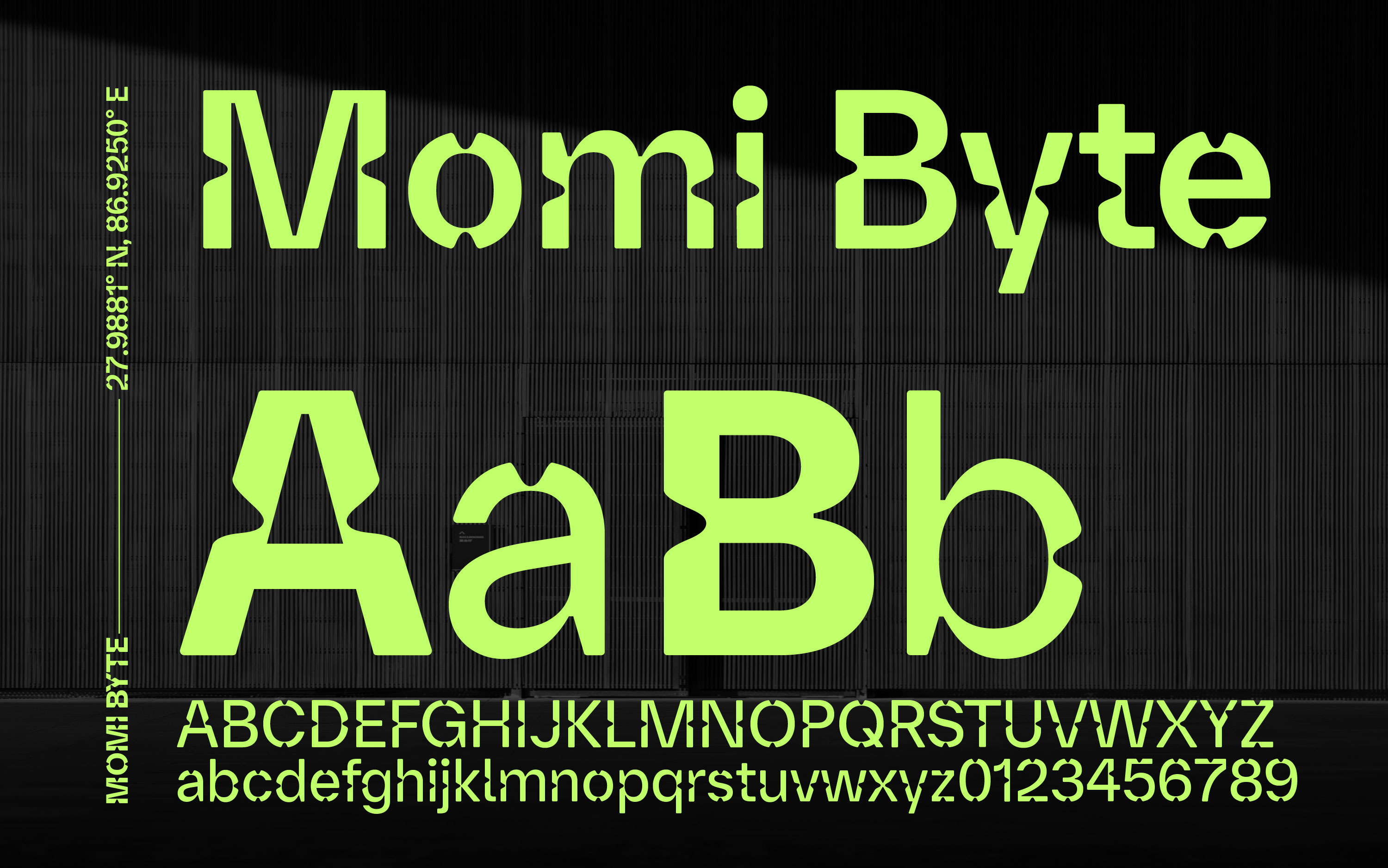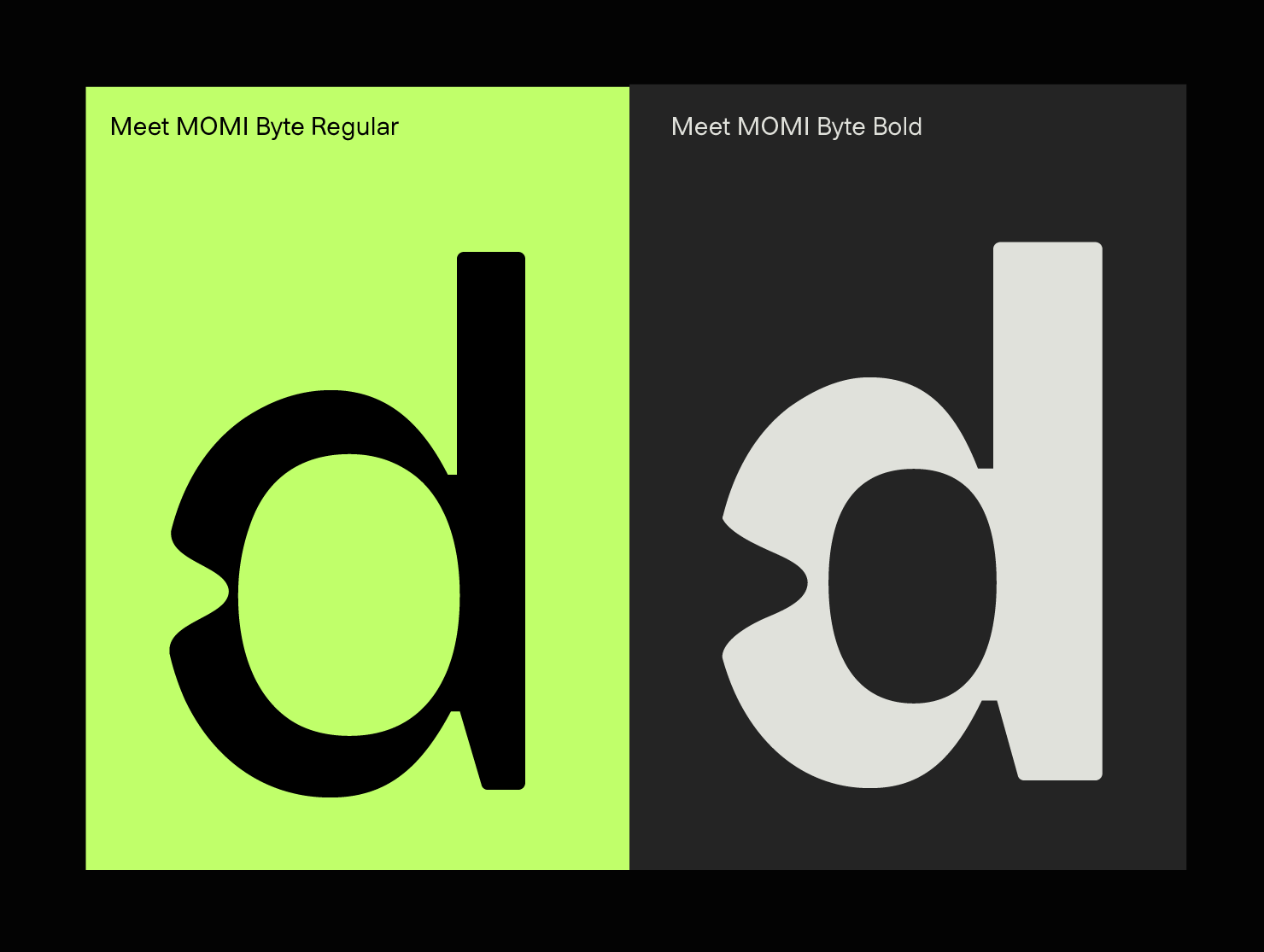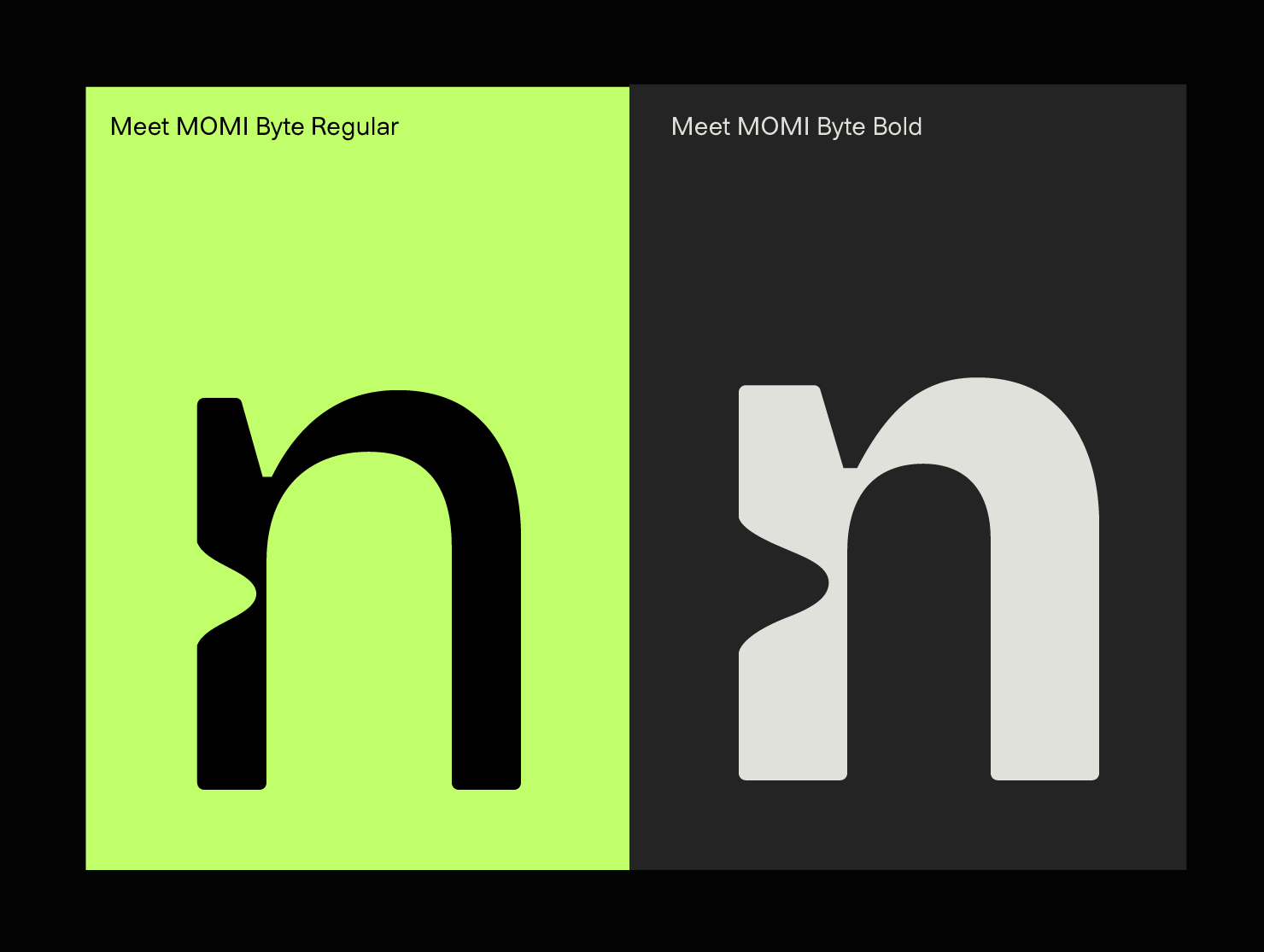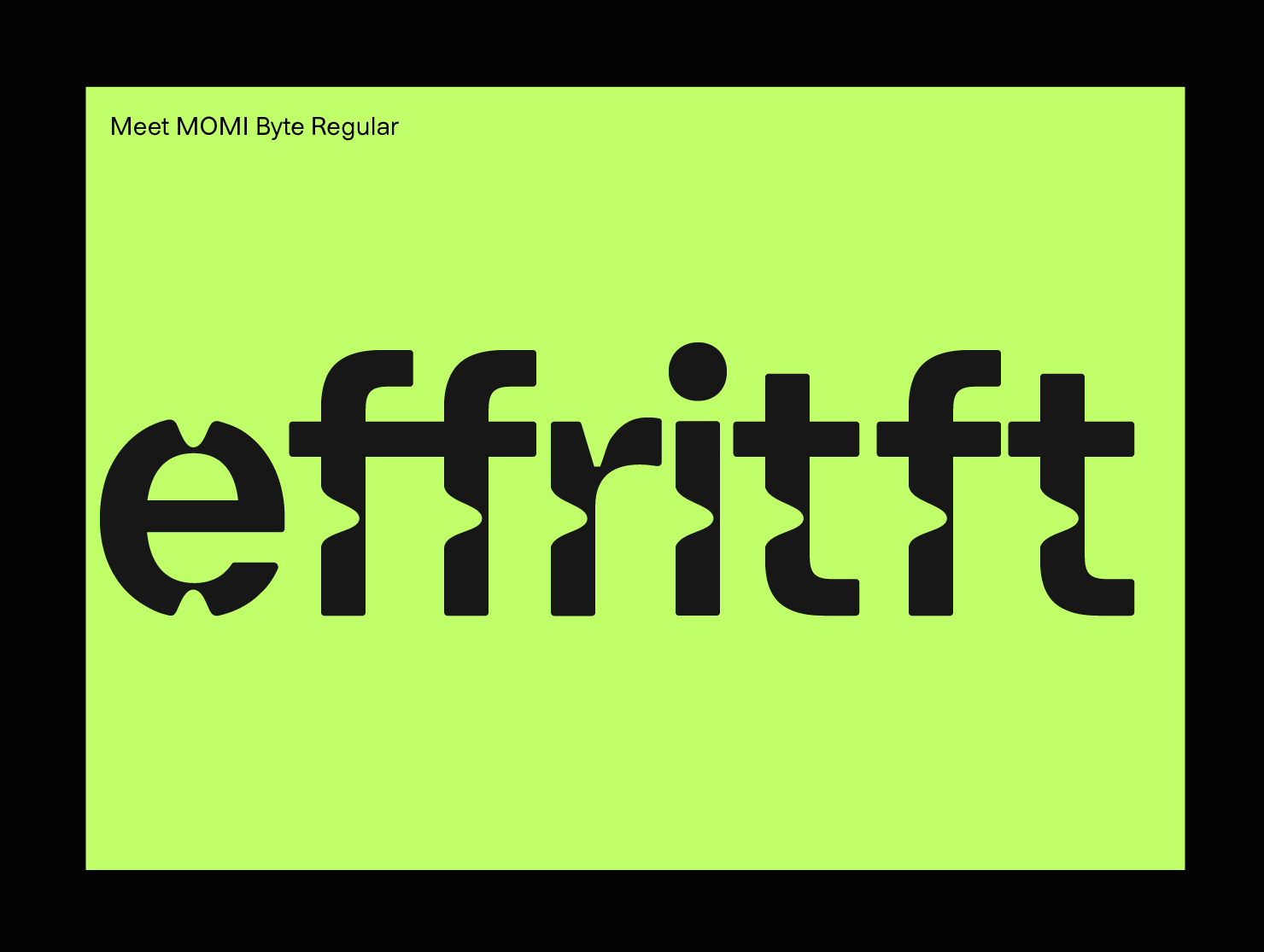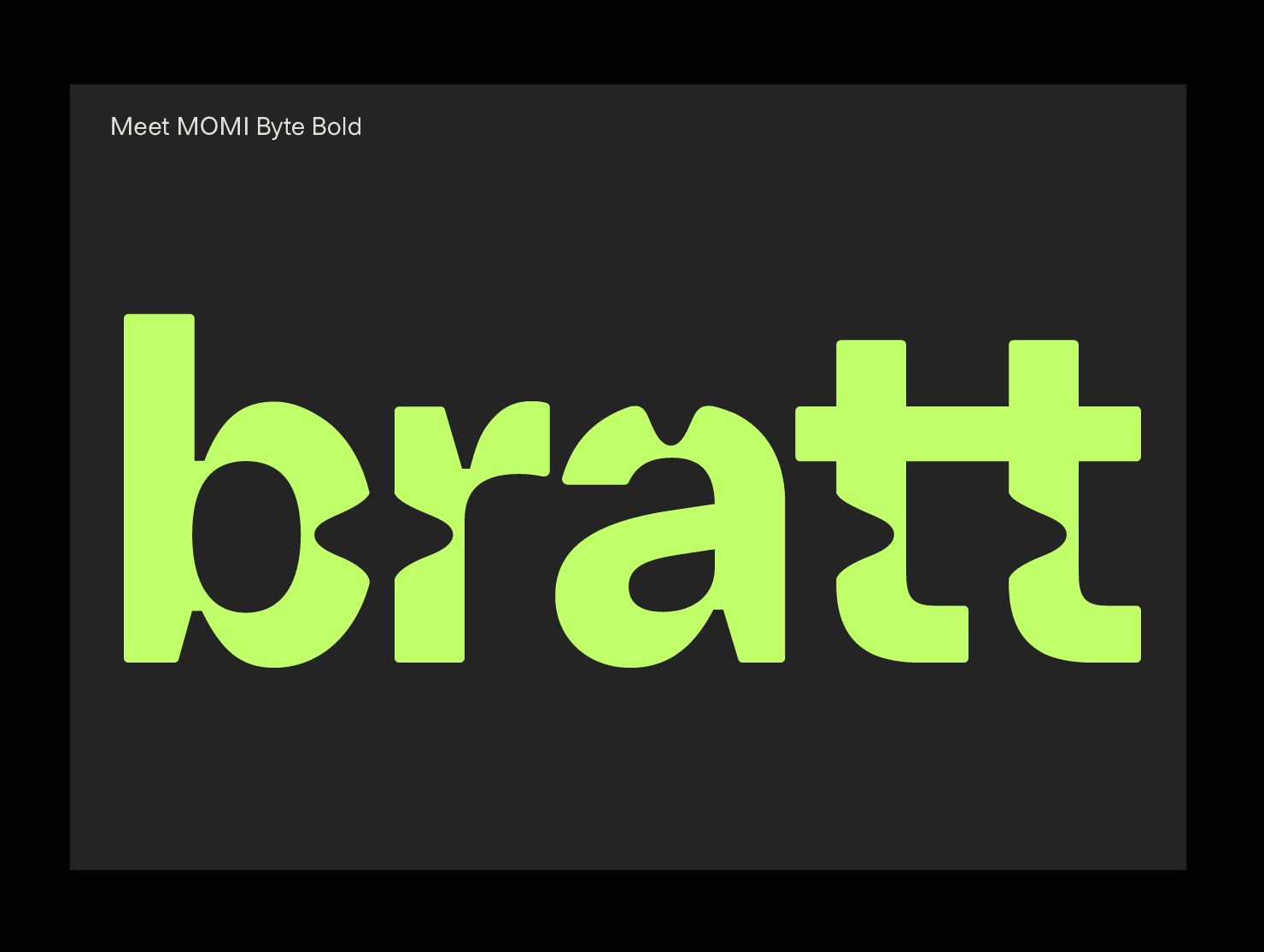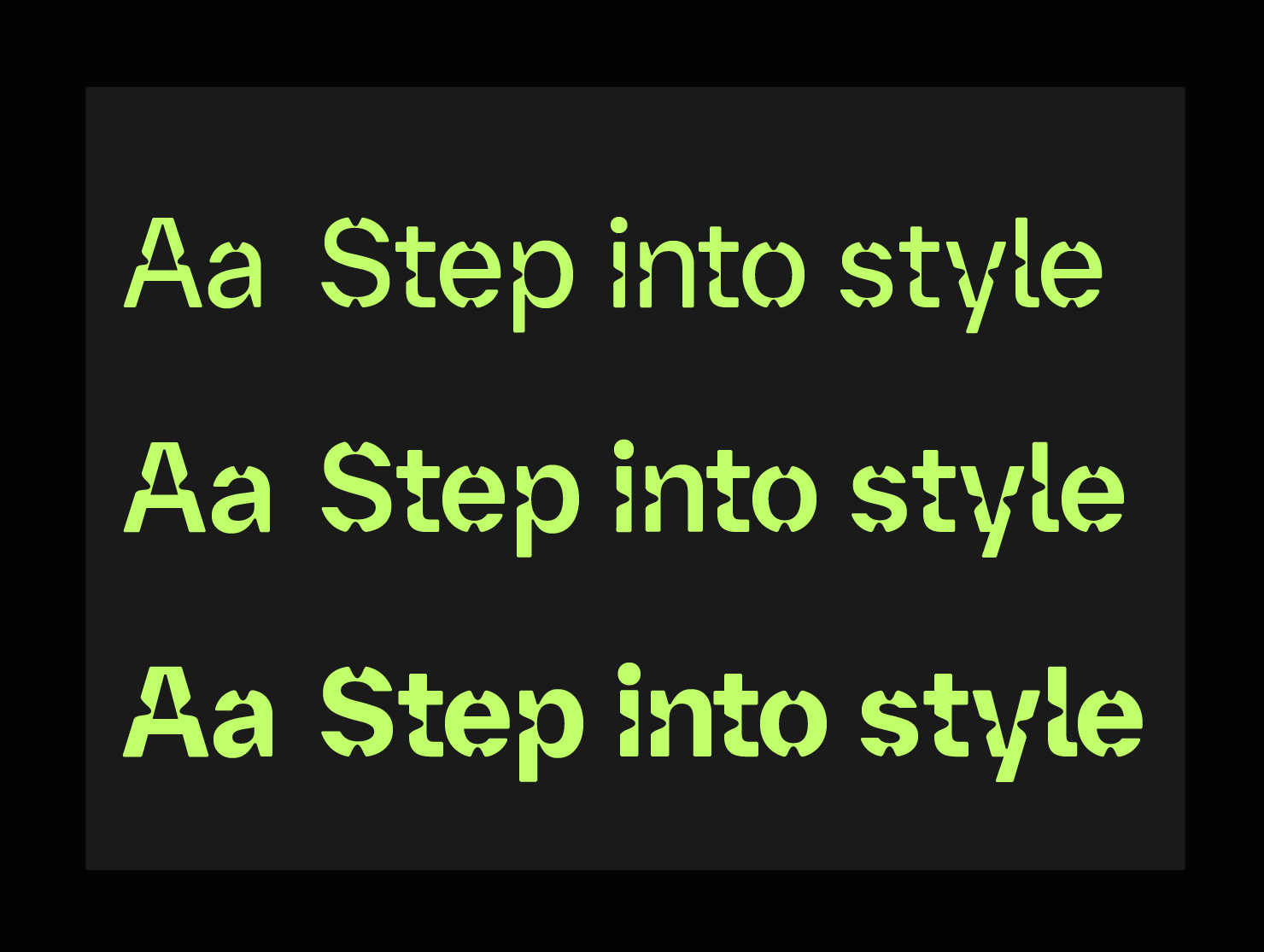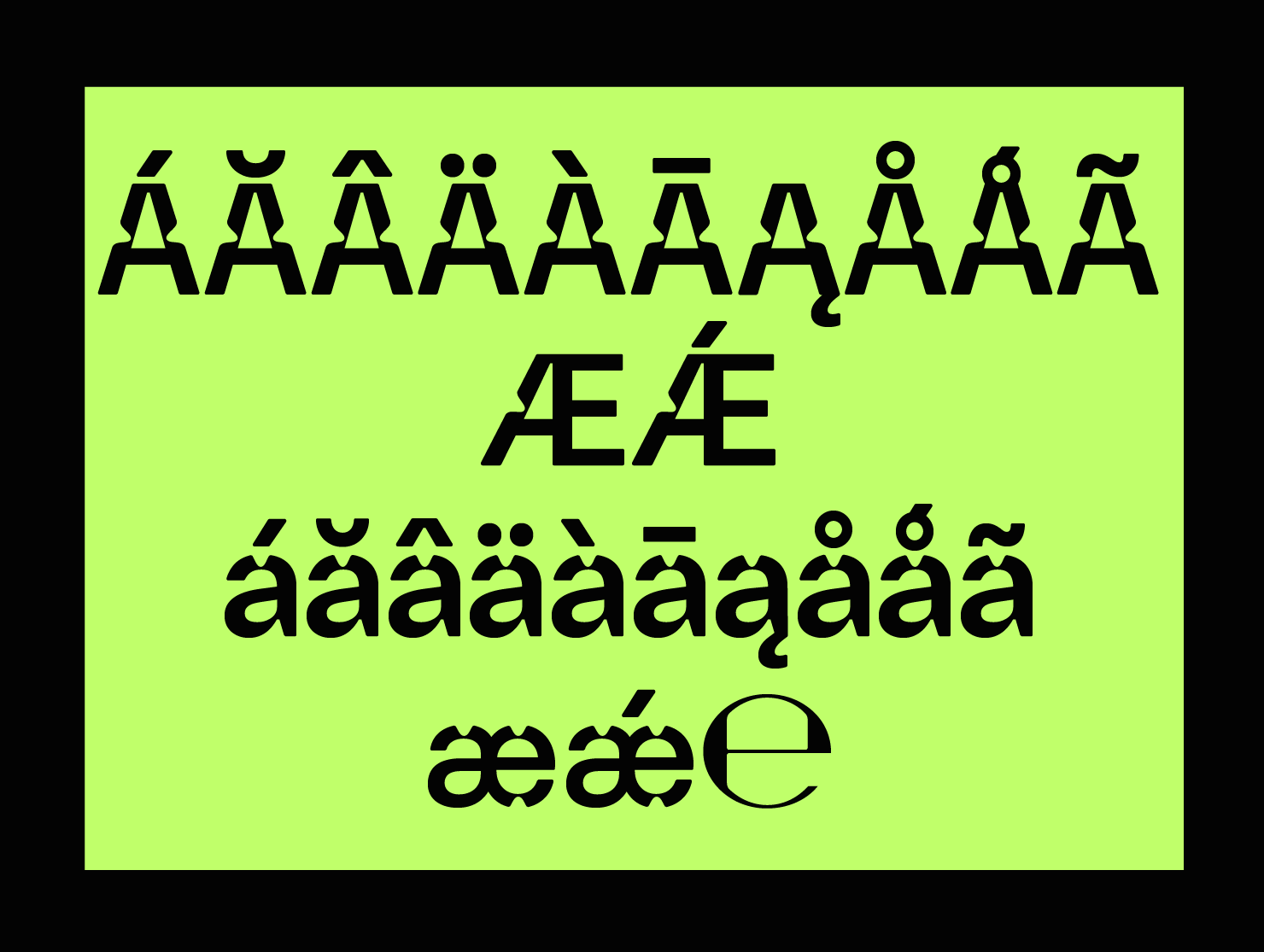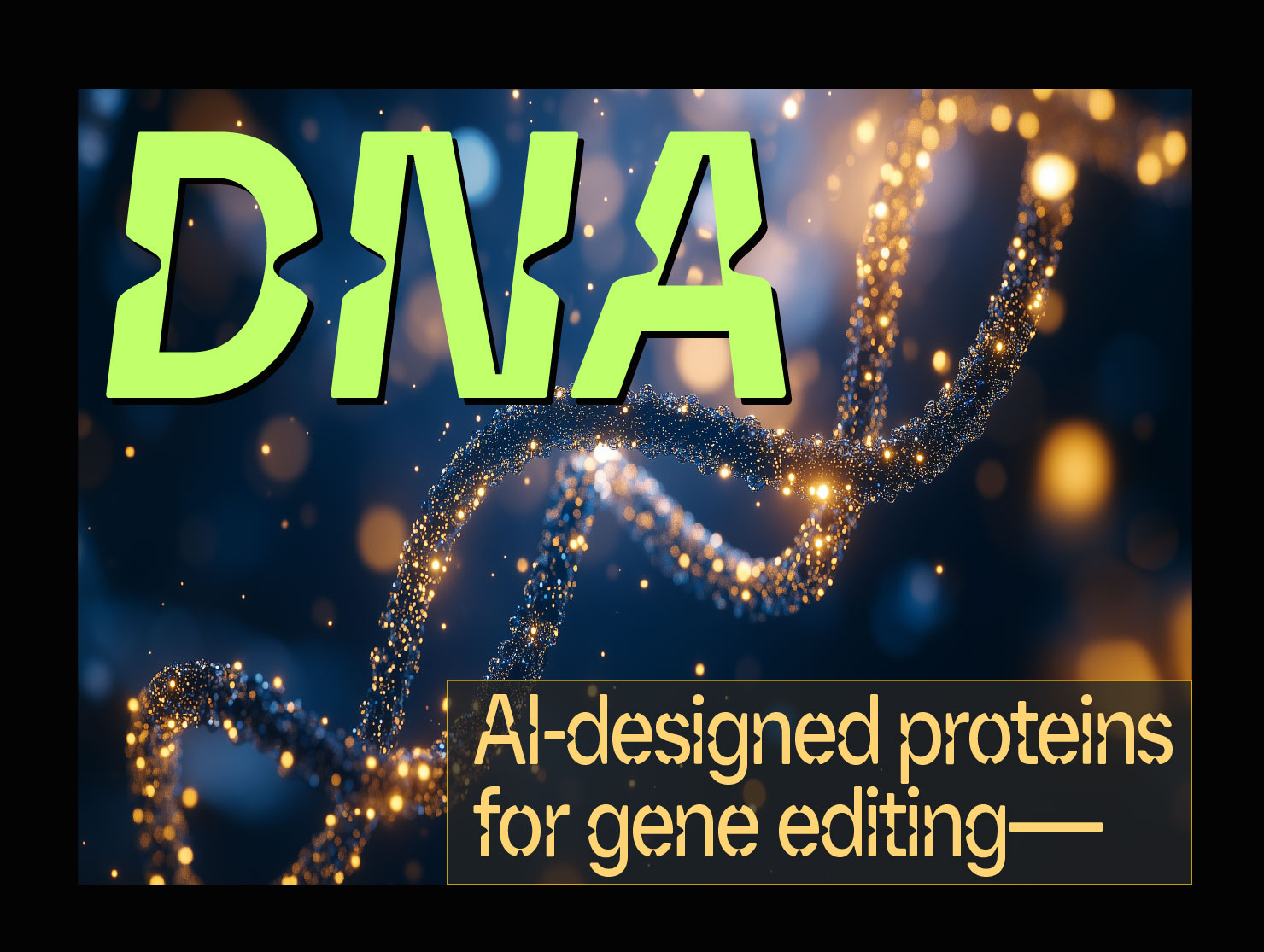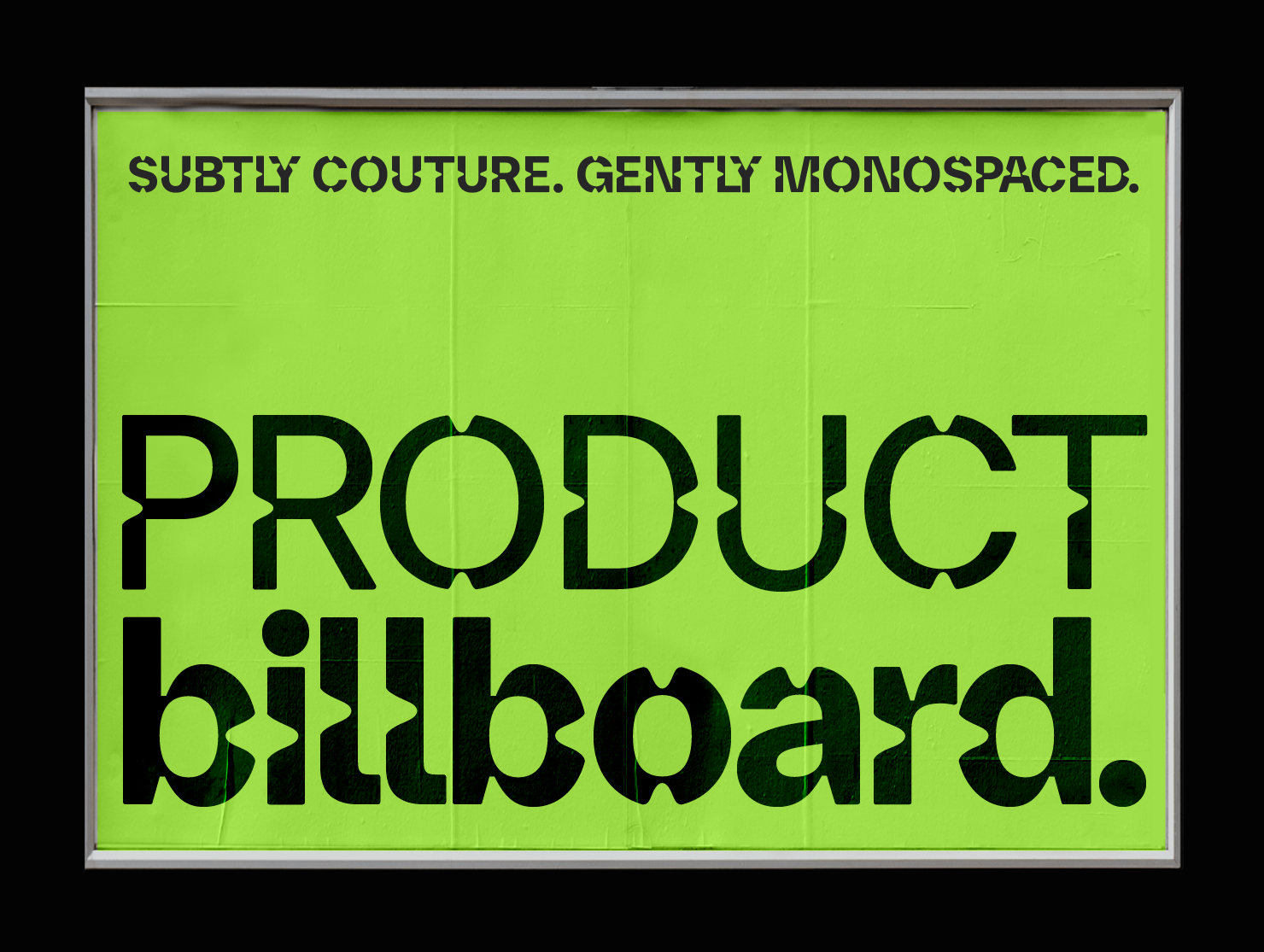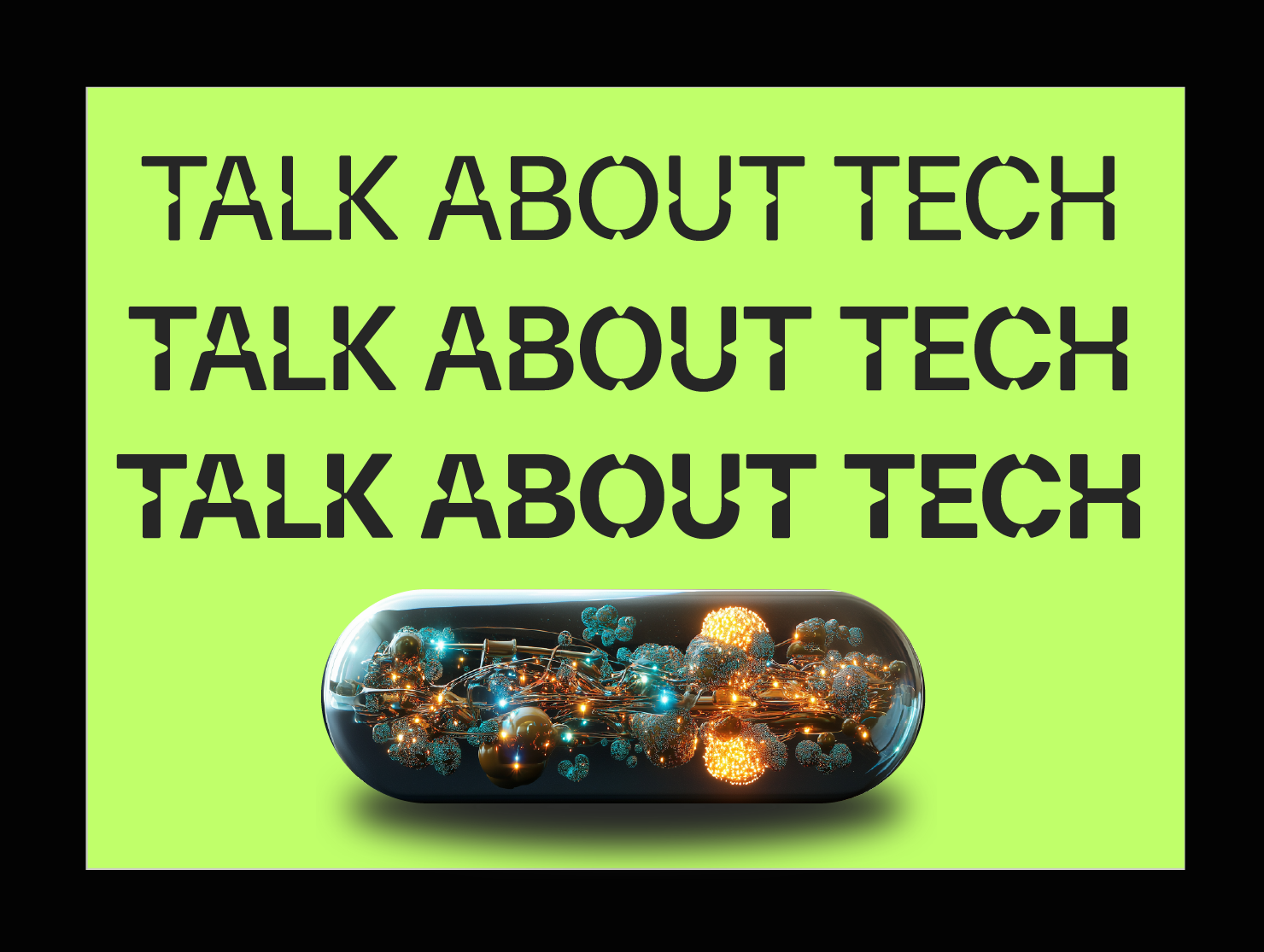
Momi Byte™
TRENDY ORGANIC TECH FONT
Organic tech font
THREE REGULAR WEIGHTS + NARROW
Swiss style poster font
MULTILINGUAL + SPECIAL CHARACTERS
Modern science font
SCIENCE AND TECH FONT
Trendy billboard font
MARKETING FONT
Designer Tech Font
DESIGNER TECH FONT
Trendy headline font
TRENDY HEADLINE FONT
Pitch deck font
UNIQUE PRESENTATION FONT
Swiss style poster font
UNIQUE WEB DESIGN FONT
Trendy multilingual font
AMPLE LIGATURES
Unique brat
MEMORABLE BRANDING FONT
Organic font
MEMORABLE BRAND FONT
Modern typography design
MODERN FONT DESIGN